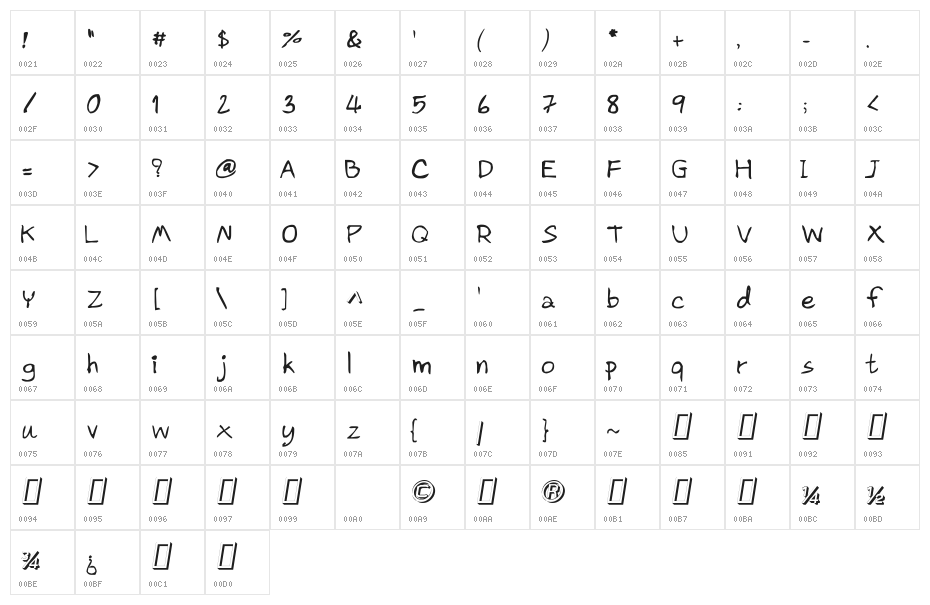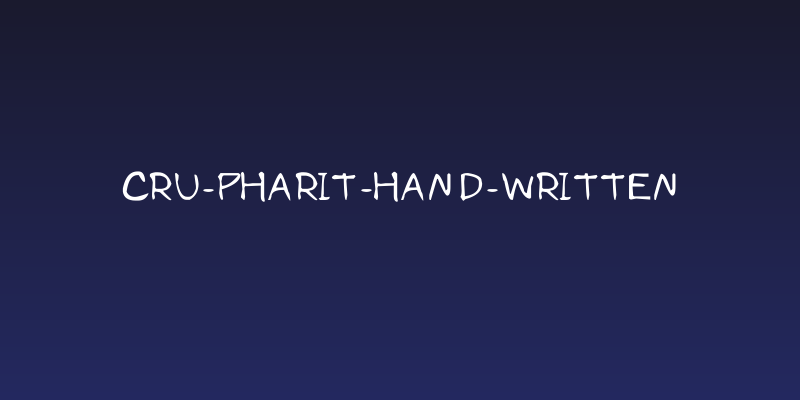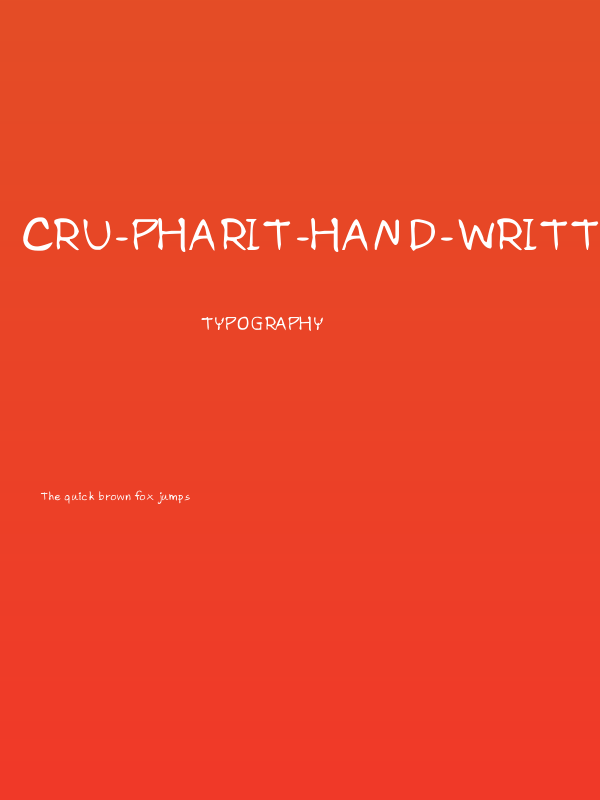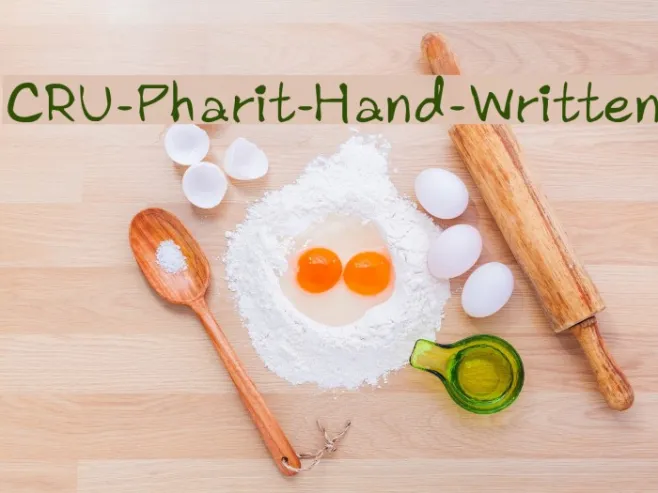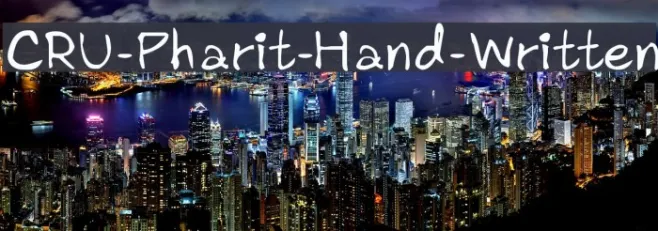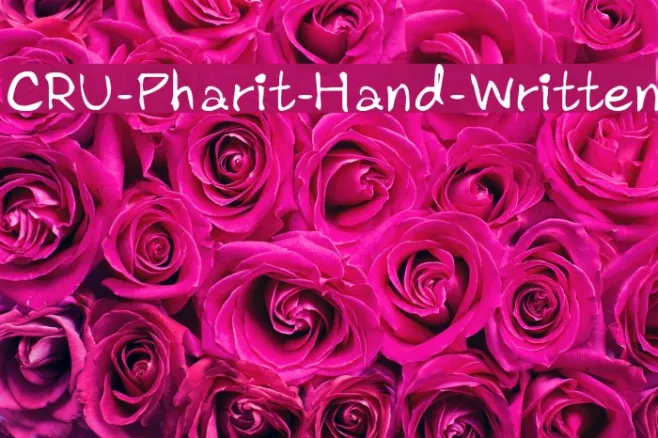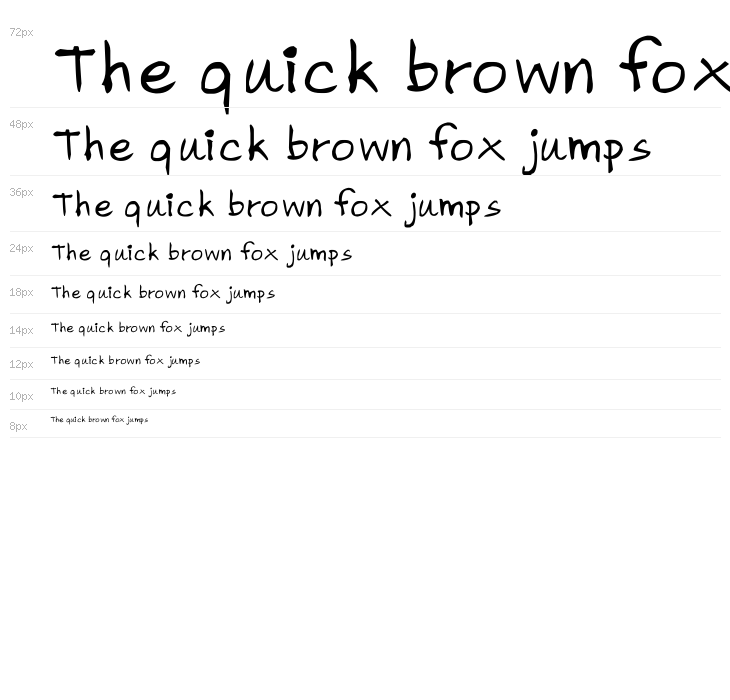
CRU-Pharit-Hand-Written Font
CRU-Pharit-Hand-Written Description
This font exudes a casual, handwritten style that mimics the natural flow of penmanship. The characters are slightly irregular, adding a personal and informal touch. Uppercase letters are bold and prominent, while lowercase letters maintain a consistent flow with rounded edges. The numbers are clear and legible, maintaining the same handwritten aesthetic. Special characters are creatively designed, fitting seamlessly with the overall style. This font is perfect for projects that require a personal, approachable feel, such as invitations, personal branding, or creative projects.
| Overall Style | Casual, Personal |
| Proposed Projects | Ideal for invitations, personal branding, greeting cards, and creative projects. |